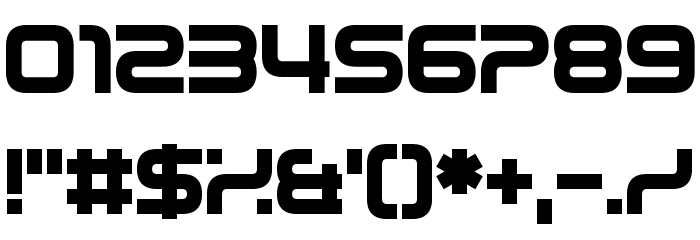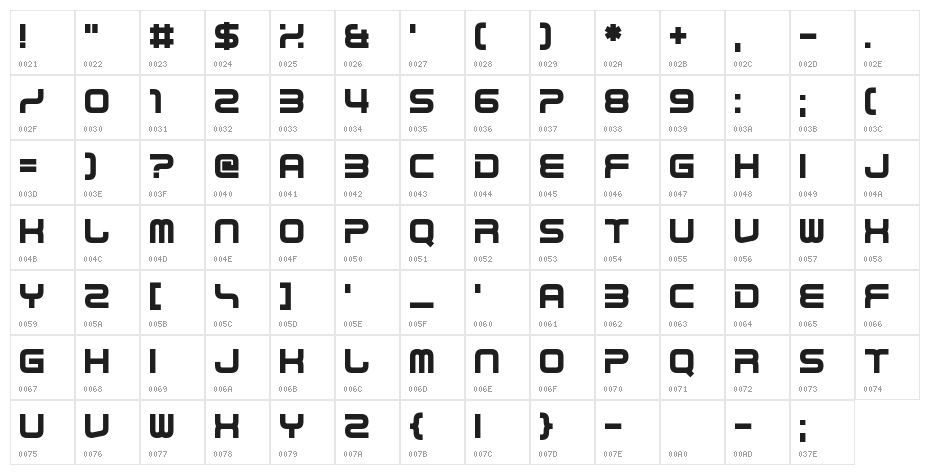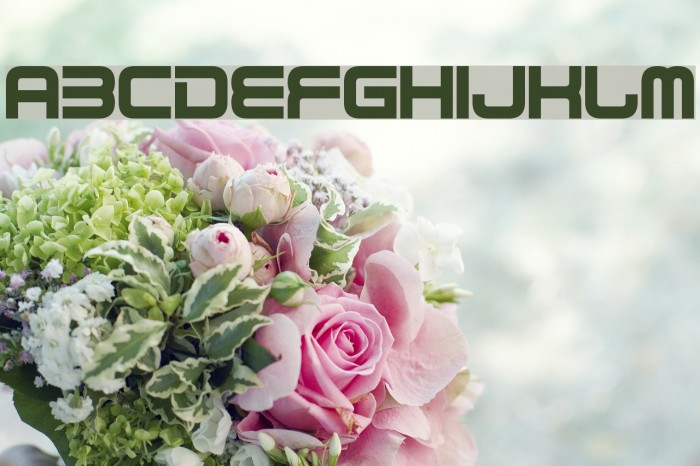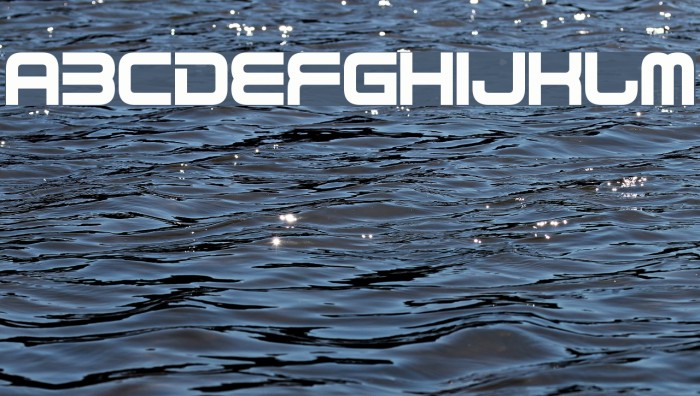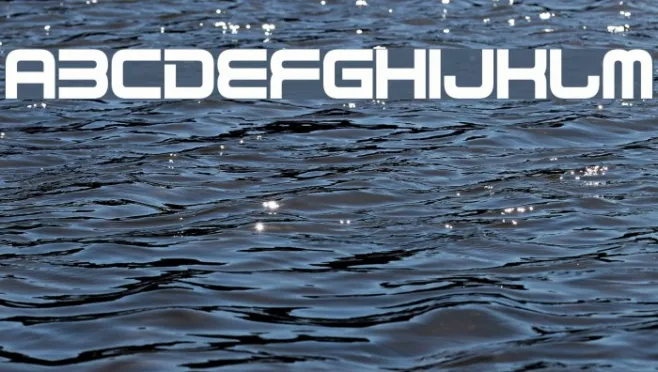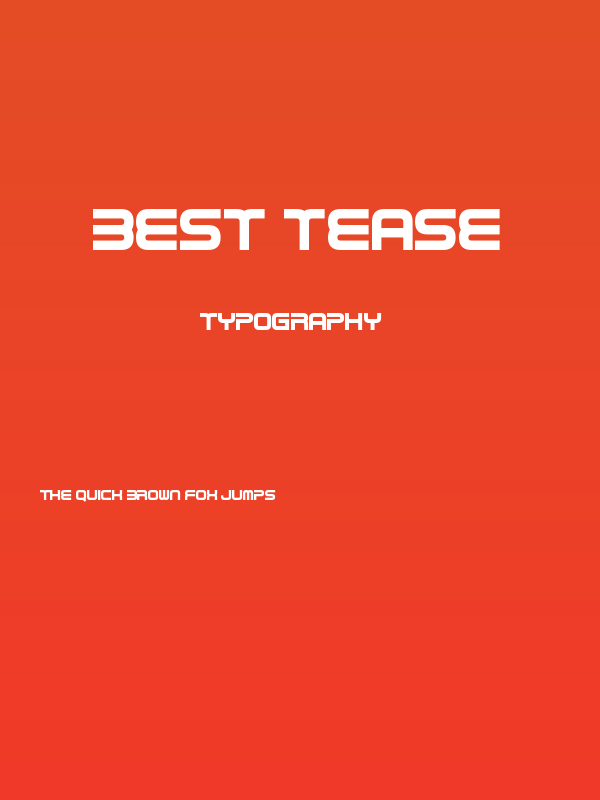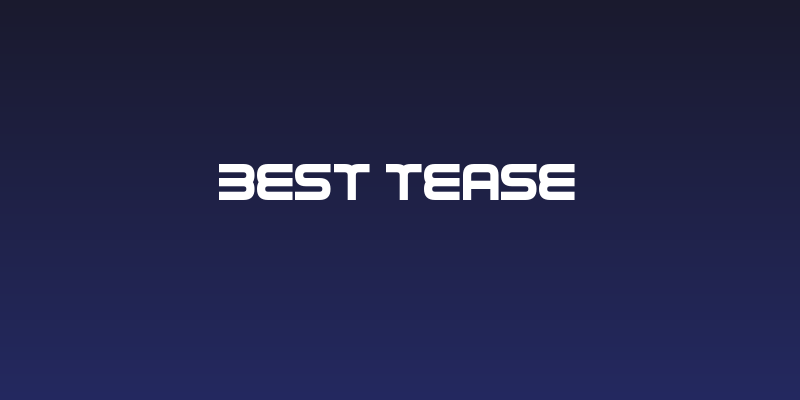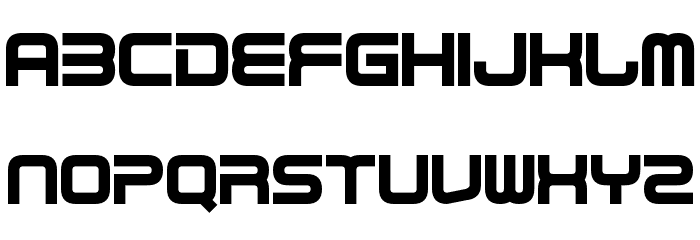
Best Tease Font
Best Tease Description
This font features a bold, futuristic design with geometric shapes and a strong presence. The characters are constructed with thick strokes and rounded corners, giving it a modern and sleek appearance. The uppercase letters are uniform in height, while the lowercase letters maintain a consistent style, enhancing readability. The numerals are distinct and align well with the overall design, making them suitable for digital displays. Special characters are included, maintaining the font's cohesive style. The font's boldness and unique design make it ideal for attention-grabbing headlines and branding projects.